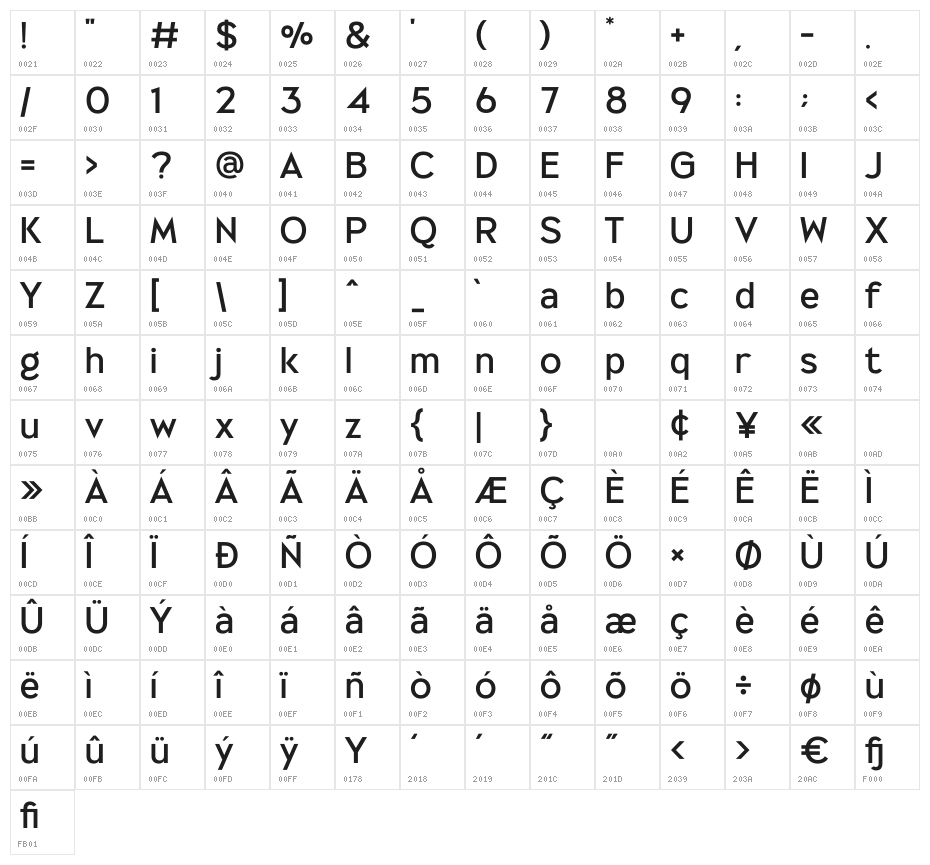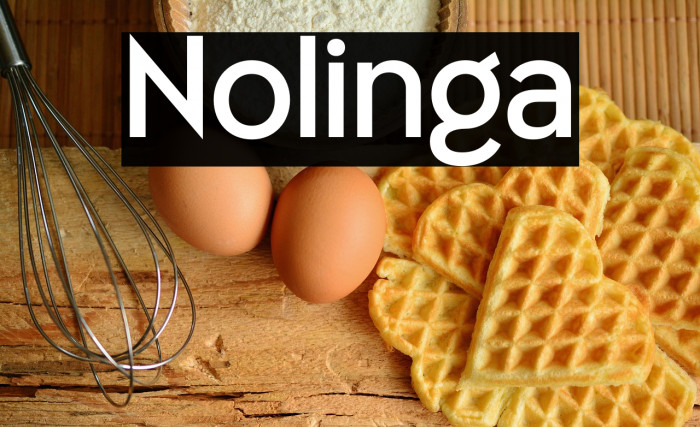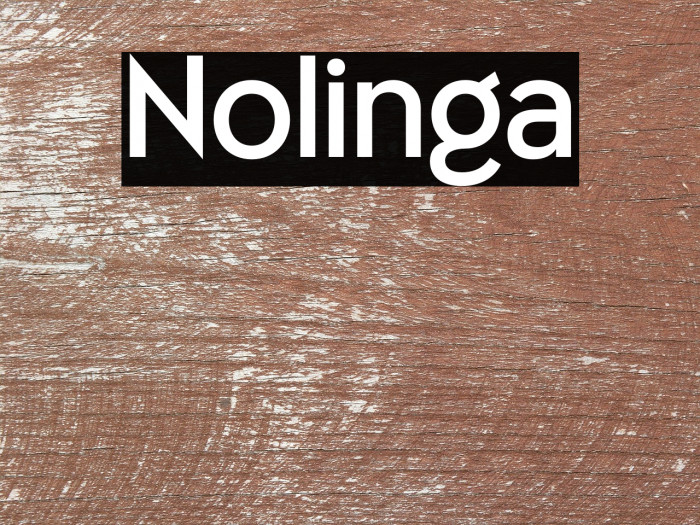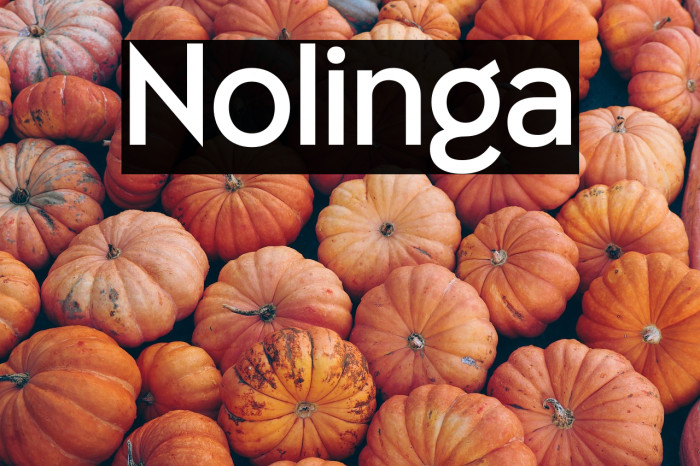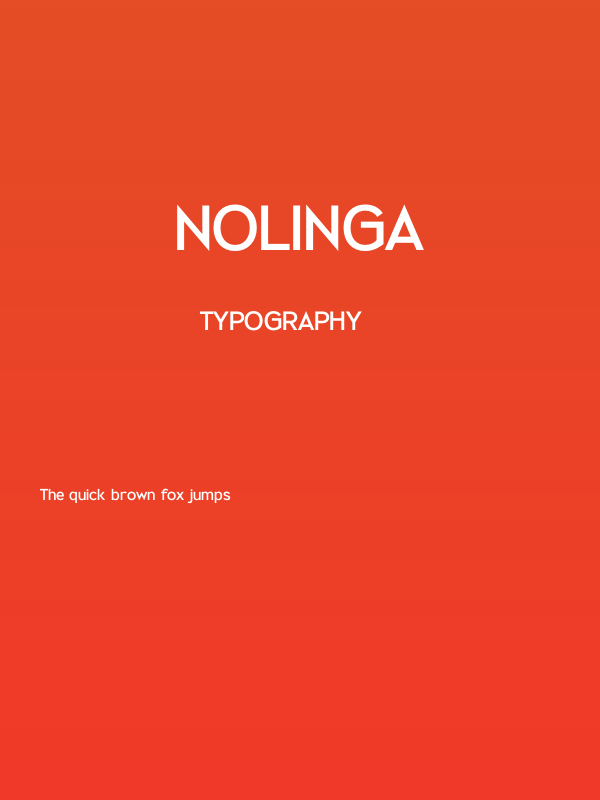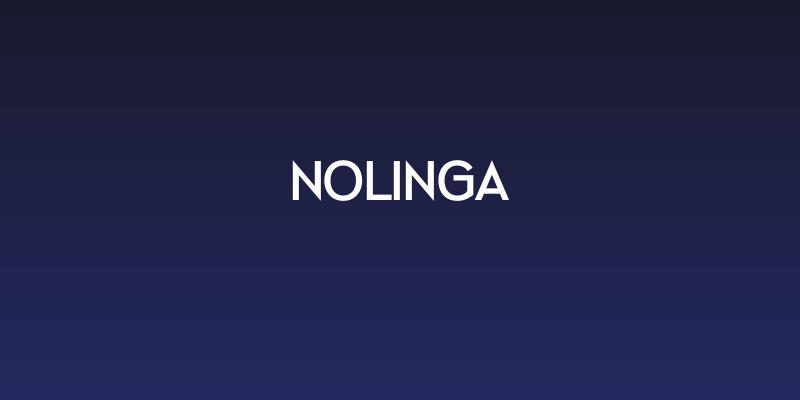
Nolinga Font
Nolinga Description
This typeface exhibits a clean and modern sans-serif style, characterized by its geometric shapes and uniform stroke widths. The letters are well-proportioned, offering a harmonious balance between curves and straight lines. The uppercase and lowercase letters maintain a consistent design, ensuring readability and clarity. The numerals are straightforward and align seamlessly with the overall aesthetic. Special characters are crafted with precision, enhancing the font's versatility. This font is ideal for digital and print media, providing a professional and contemporary look.